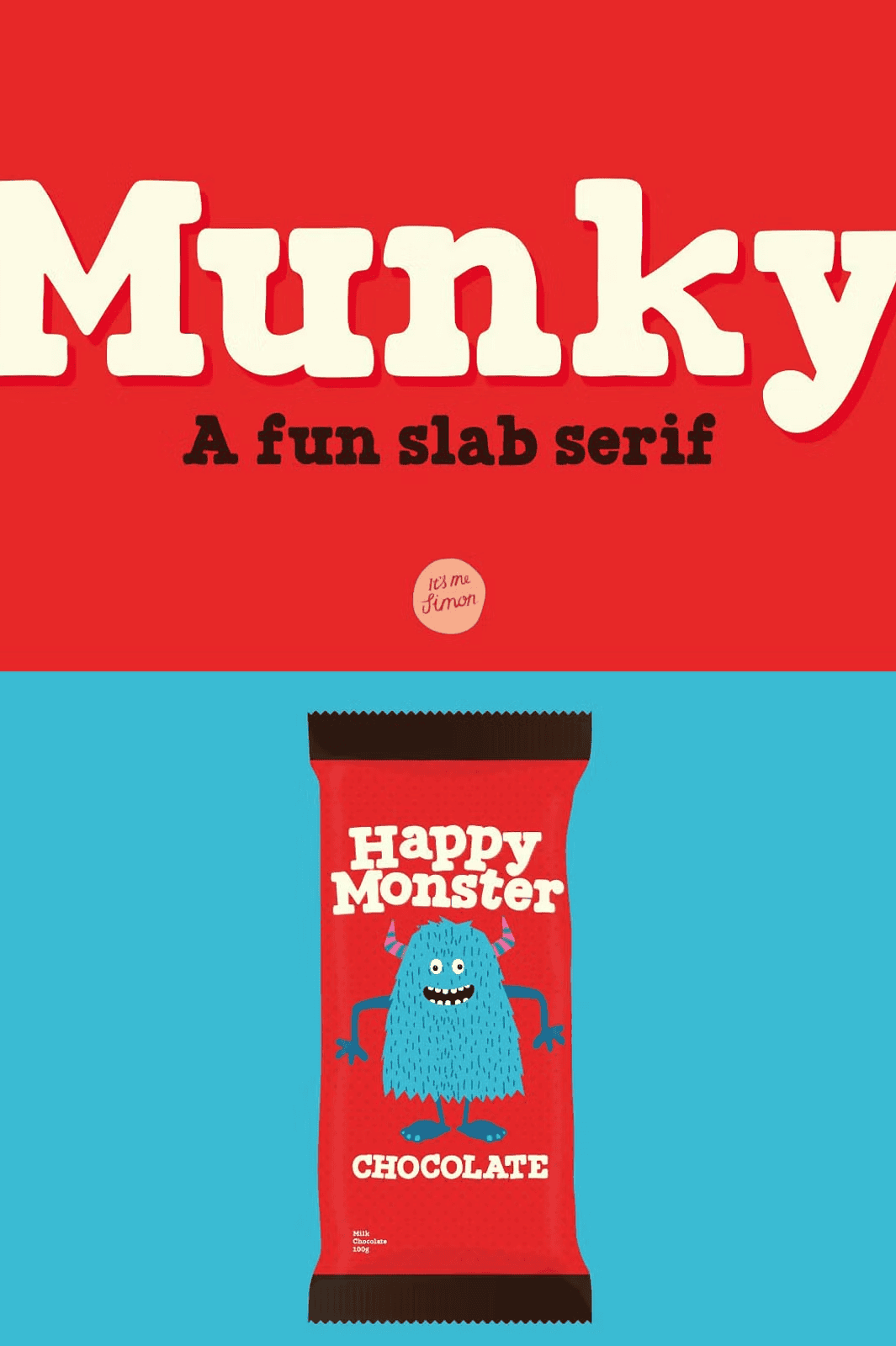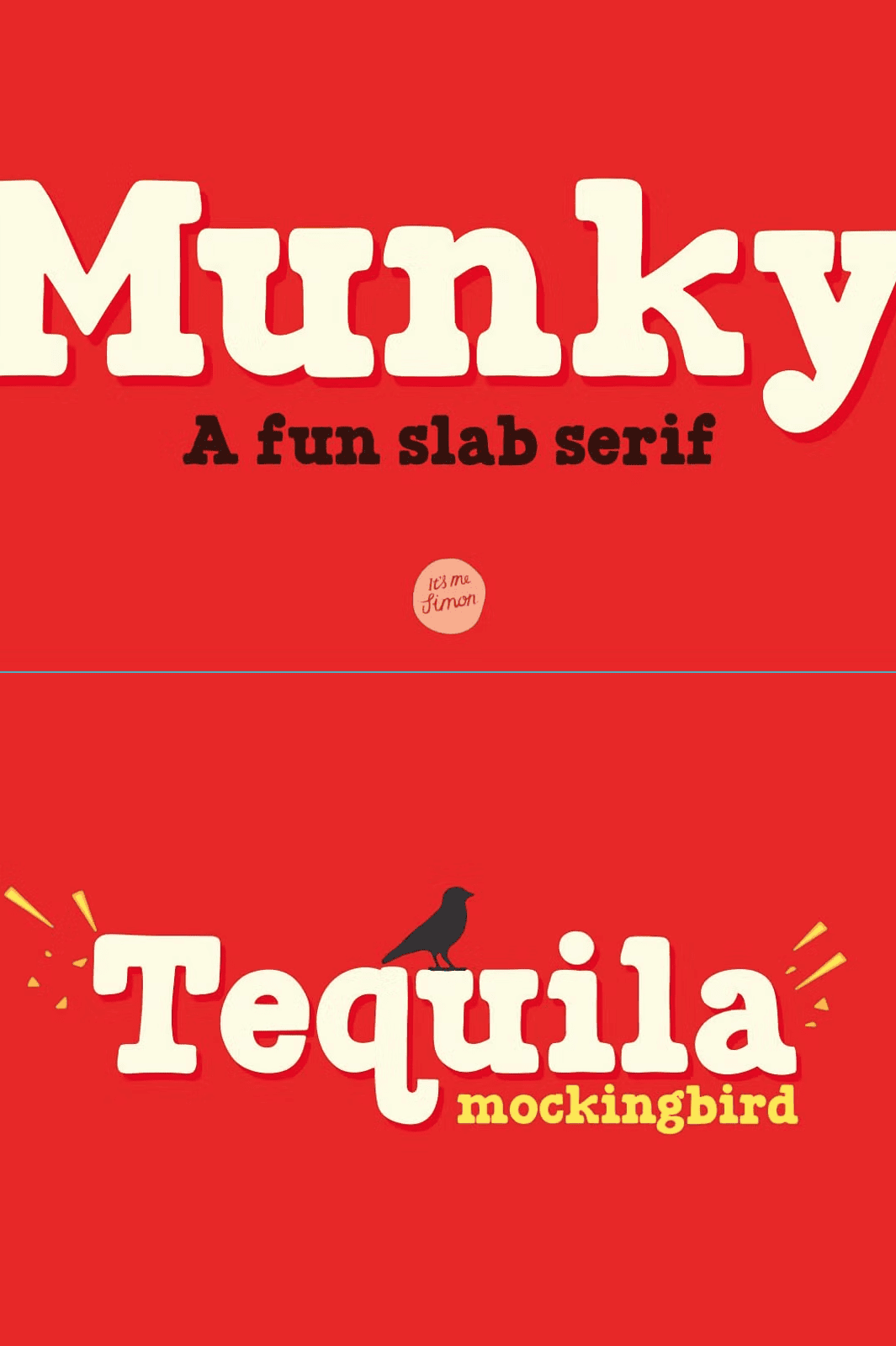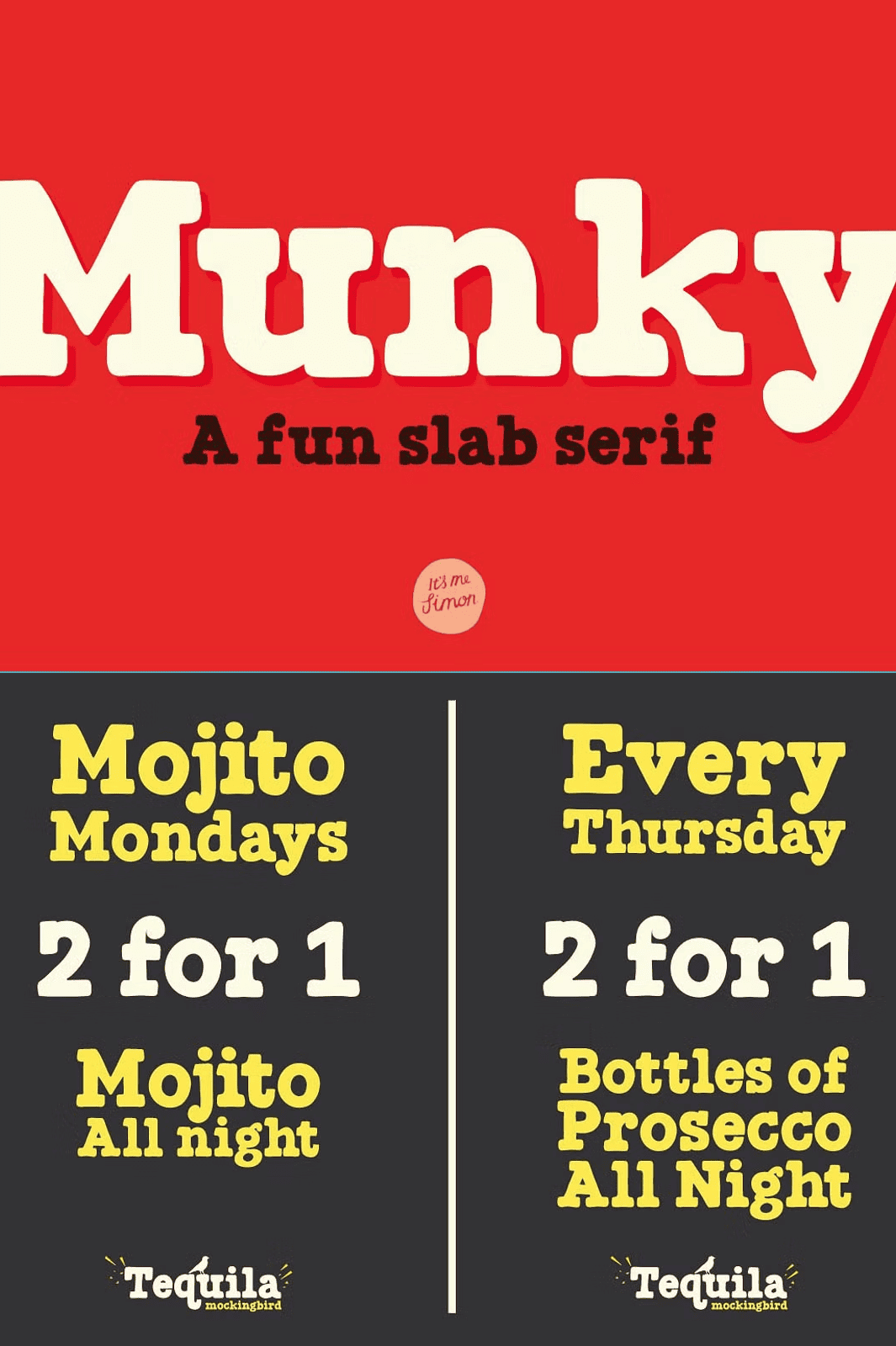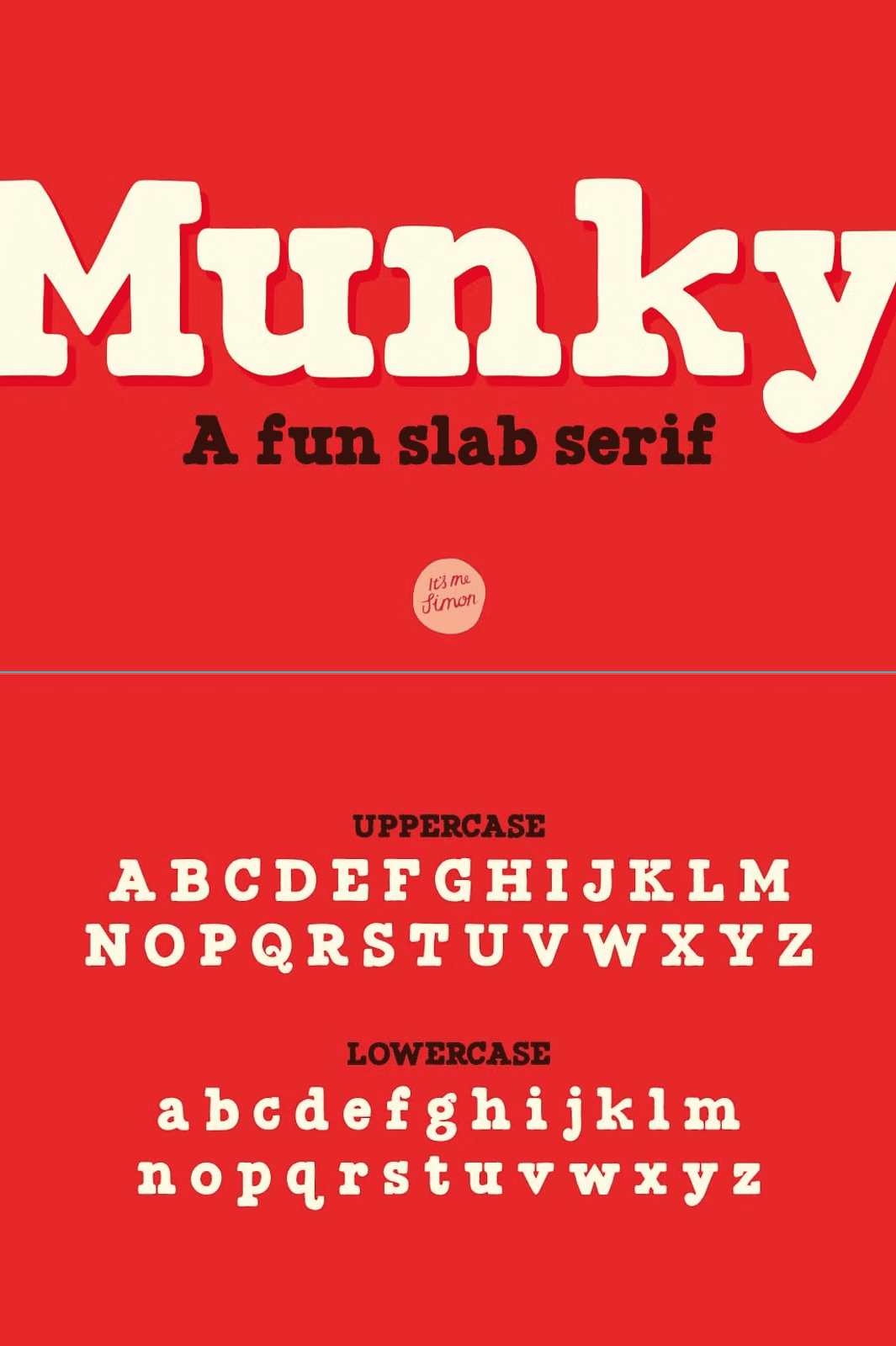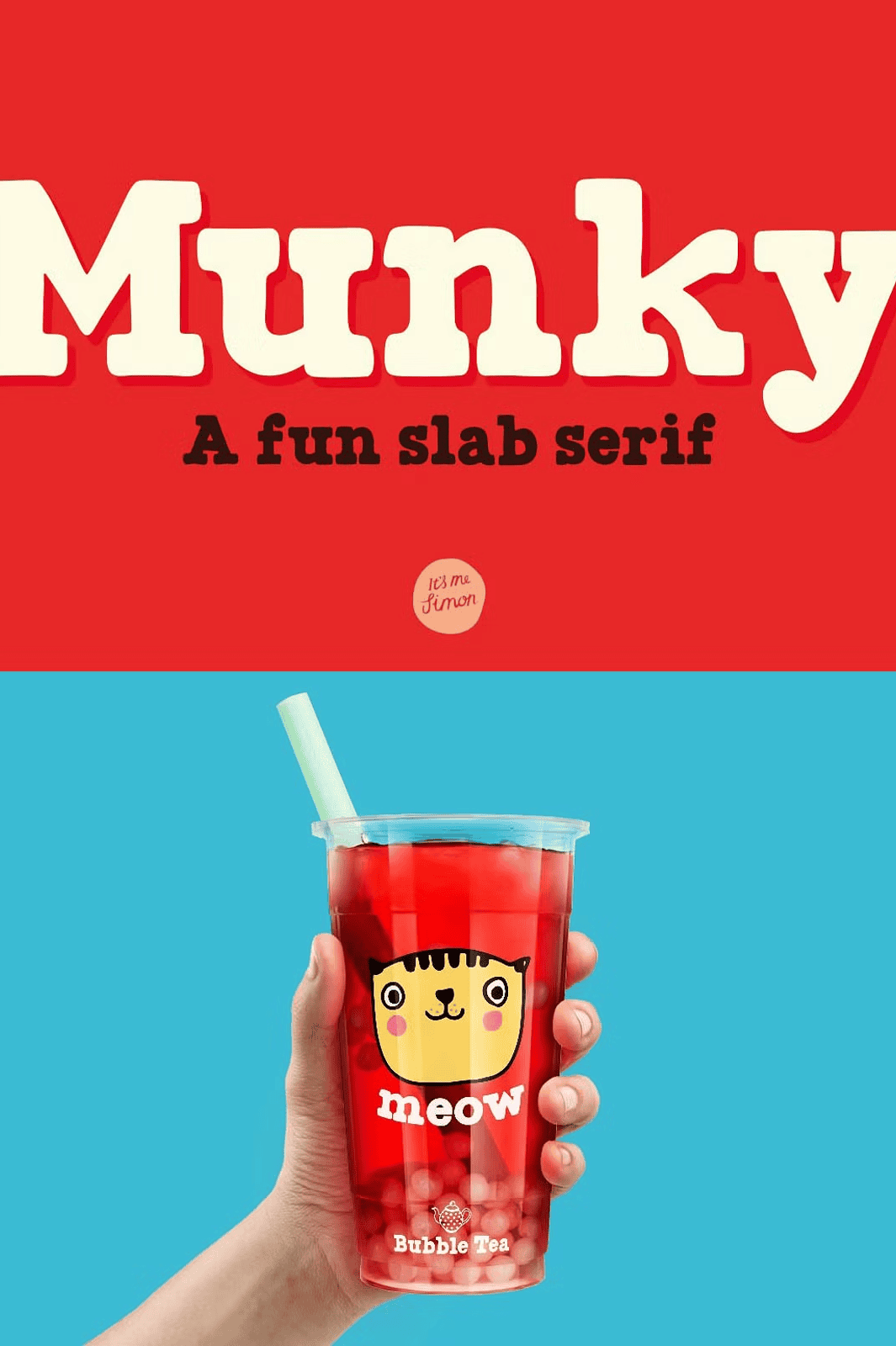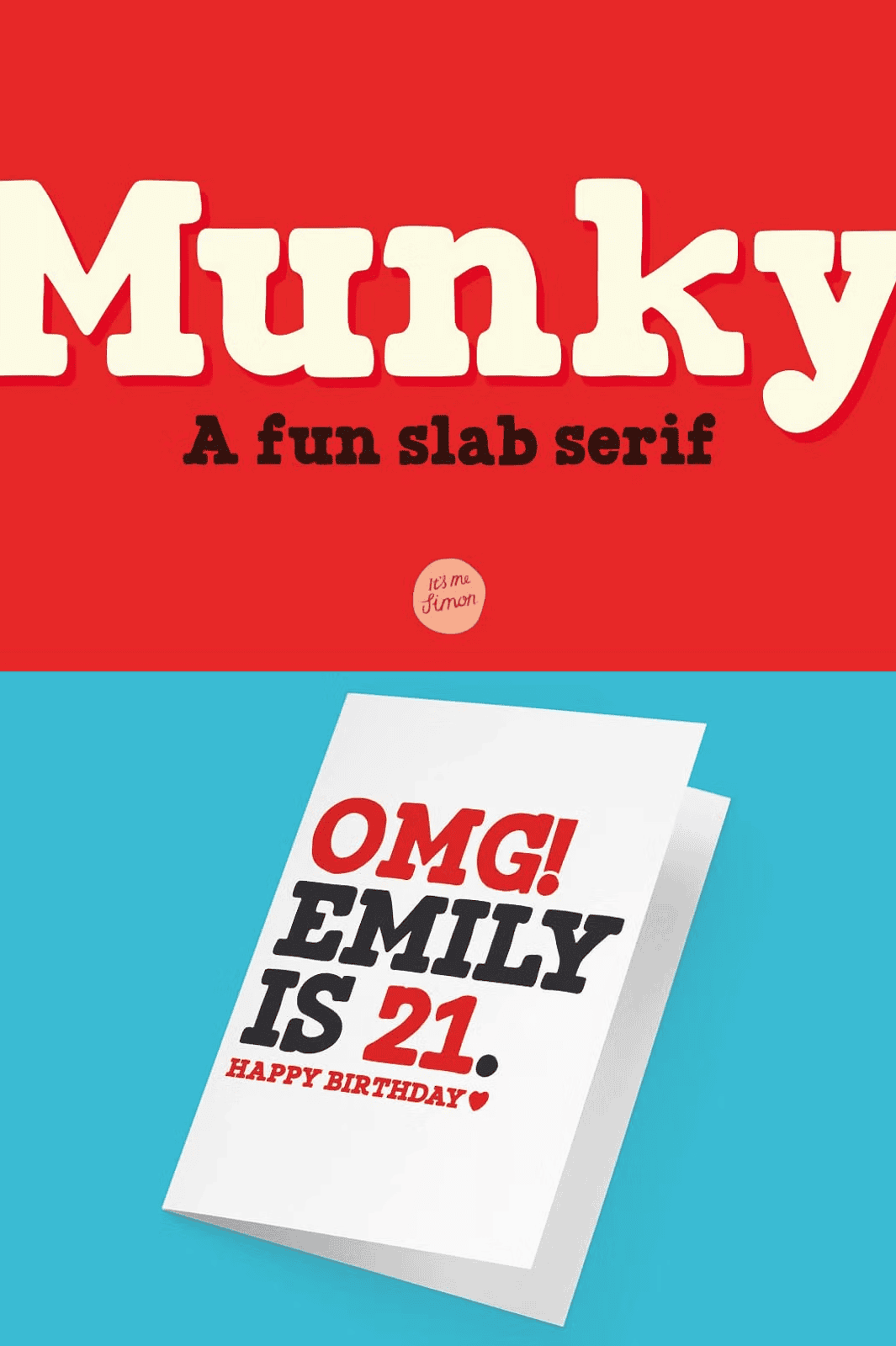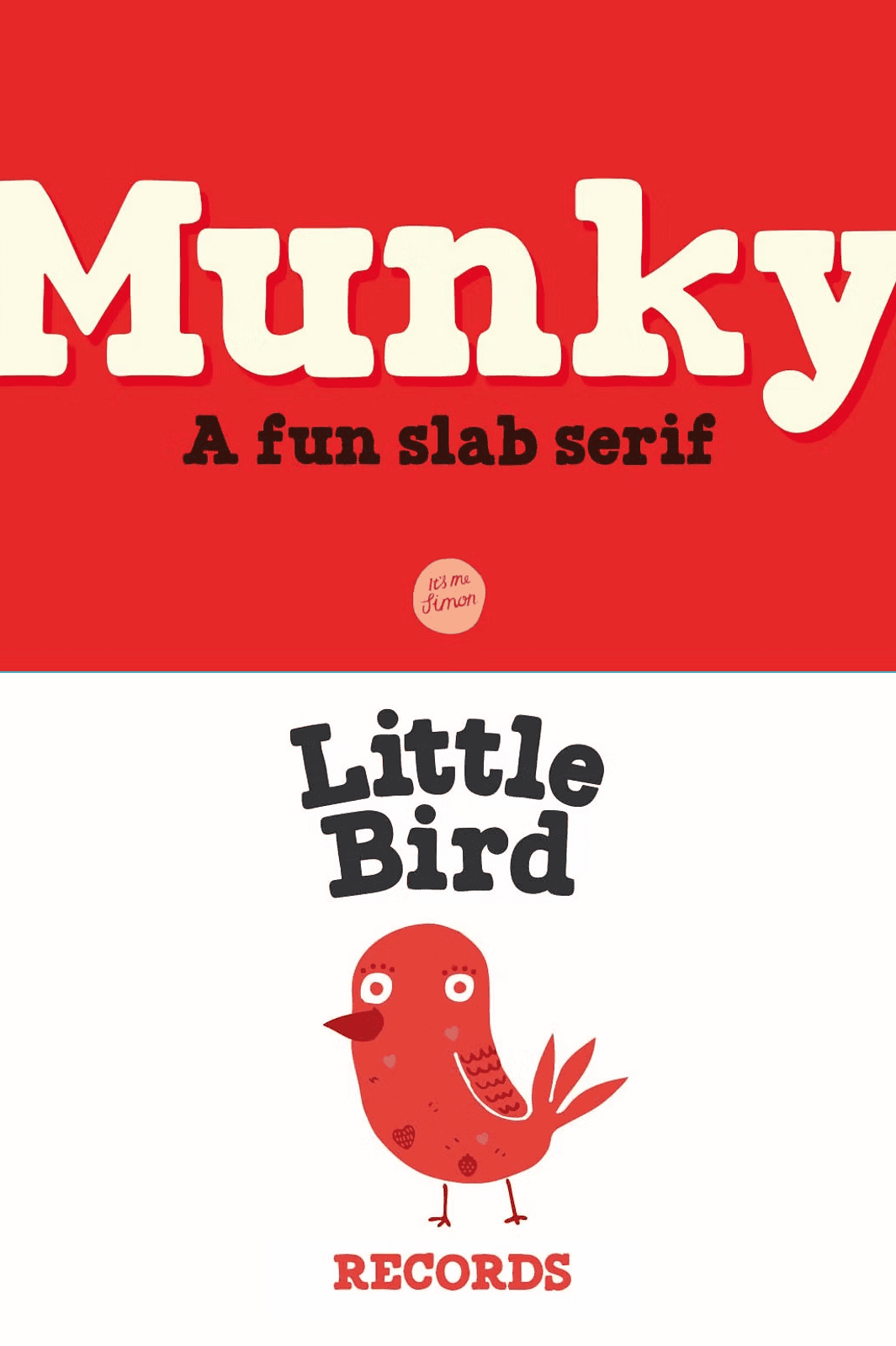
Unleash the fun with Munky—a bold, character-filled slab serif font that brings energy, charm, and a laid-back attitude to your designs. With its intentionally imperfect curves, slightly kinked forms, and massive heavy serifs, Munky doesn’t just grab attention—it owns the spotlight. Think John Candy-level warmth meets modern typography: friendly, unforgettable, and never too serious.
Stand Out with Unmistakable Visual Personality
Every letter in Munky is crafted to feel alive. Slight irregularities in stroke thickness and unique serif details aren’t mistakes—they’re the heart of its charm. This isn’t a rigid, mechanical typeface. It’s a friendly giant with a personality, ready to bring life to your creative vision. Use it for bold headlines, striking titles, or even sentence case text, where its playful balance ensures readability without sacrificing flair.
Perfect for Brands That Want Character, Not Cliché
Whether you’re branding a café, designing a music festival invite, creating packaging for a lifestyle product, or laying out a book cover, Munky delivers the right tonal balance—fun without being childish, bold without being loud. It works brilliantly across a wide range of applications, from retail packaging and social media graphics to event posters and editorial layouts. It’s not just a font—it’s your brand’s new mascot with a voice.
Designed with Real-World Use in Mind
Munky isn’t just pretty—it’s practical. The font family includes:
- One bold weight for maximum impact and visibility
- Full upper and lowercase alphabet for natural, fluid text
- Comprehensive punctuation, numbers, and symbols
- Support for Western European, Central European, and South Eastern European characters—ideal for international projects and multilingual design
This robust character set ensures your message remains clear and professional, no matter where your design travels.
Transform Your Design with Instant Visual Appeal
Stop overthinking your typography. With Munky, you get a ready-to-use, high-impact font that works instantly. It’s perfect for:
- Brand identities that want to feel human, not corporate
- Packaging designs that need to stand out on crowded shelves
- Invitations with a relaxed yet polished tone
- Book covers and chapter headings that say “fun, but not silly”
- Event promotions craving energy and memorability